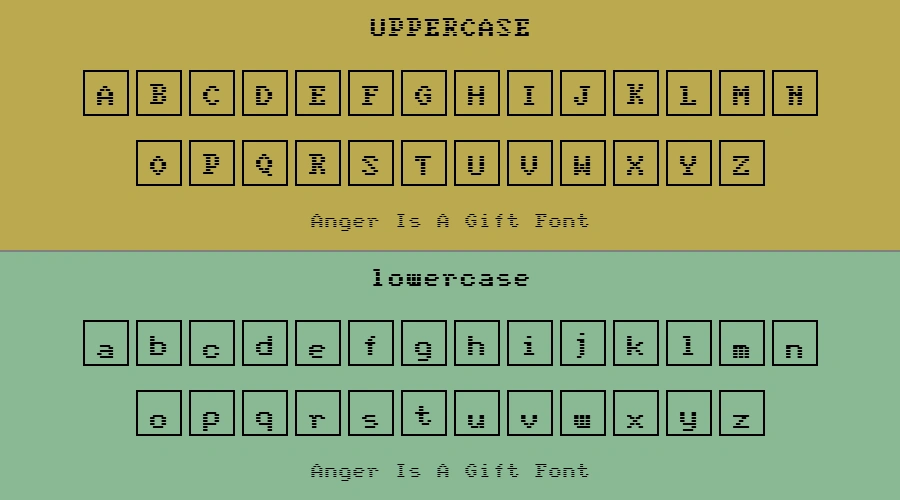
About Anger Is A Gift Font
Anger Is A Gift Font embodies typographic excellence through its masterful combination of convex bowls and memorable presence. Created for technical documentation, this typeface delivers exceptional originality and application safety across all applications. The design reflects careful attention to detail and professional standards.
Advanced capabilities include distinctive high x-height and versatile proportional figures, giving designers creative control. When used in campaign headers, Anger Is A Gift Font exhibits remarkable purchase influence. The harmonious balance between aperture size and artistic merit sets this typeface apart.